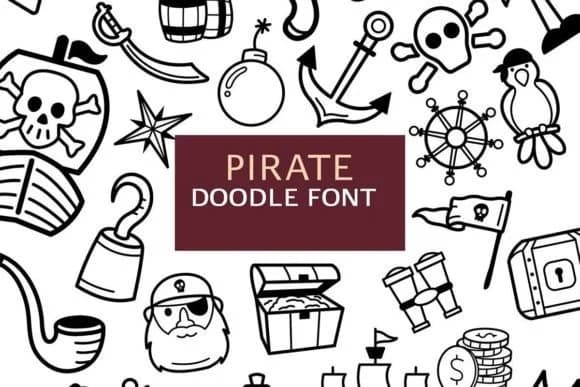
This playful dingbat collection practically begs to be scattered across your projects with gleeful abandon. Pirate Doodle, designed by digitalplannerland, brings genuine whimsy and character to any creative work that craves visual personality and heartfelt charm.
The set works beautifully across several real-world scenarios. Digital planner spreads rely on quick visual anchors that break up dense text sections and guide the eye. Greeting card designs gain warmth when you layer these dingbats alongside hand-lettered text or flowing calligraphy. Scrapbooking layouts become more engaging with decorative elements filling negative space and creating visual connections between pages. DIY sticker sheets and custom planner stickers for journals or personal organizers give you ready-made imagery to print, cut, and apply directly. Both outline and filled versions come included, delivered as OTF and TTF font files with matching PNG and SVG assets for flexible layering, scaling, and mixed-media use across print and digital projects.
Pair this collection with a clean geometric sans-serif typeface to establish strong visual contrast and let both elements breathe independently. The restraint of minimalist typography will make these playful shapes pop and feel even more striking. Find Pirate Doodle on Creative Fabrica to bring decorative personality and whimsy to your design projects.
Pirate Doodle Font is a versatile dingbats font that works for both headings and body text. Pair it with a contrasting sans-serif or serif font to add visual interest and a clear distinction between titles and body copy.